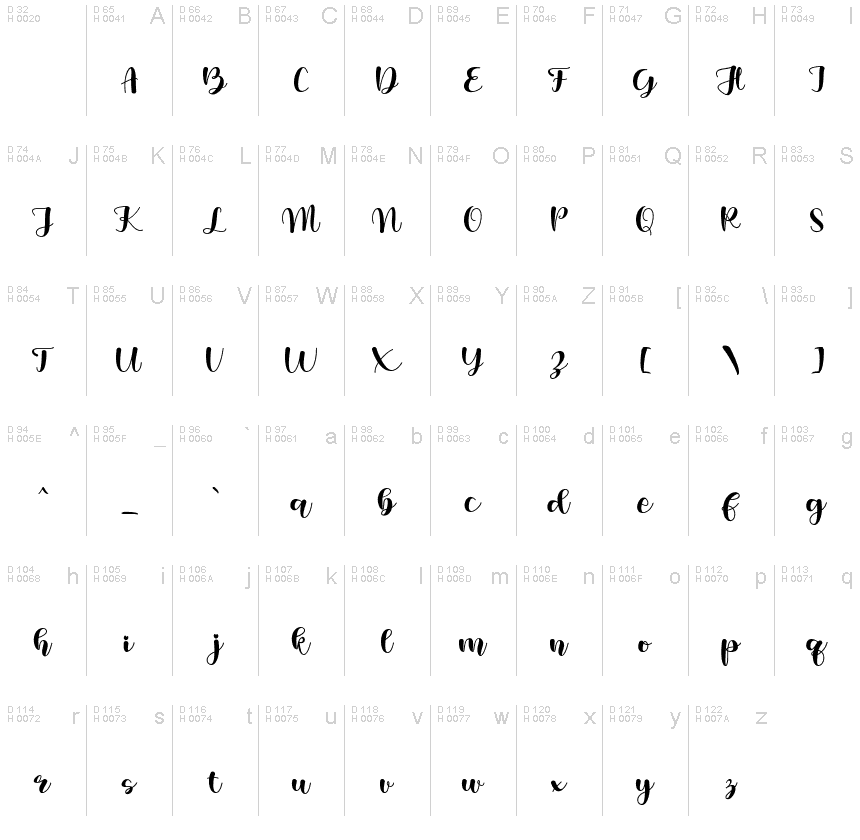
Valentine Vanilla
Valentine Vanilla is a charming calligraphy font designed by Sarif Letter. The bold weight and cute style make it perfect for Valentine's Day projects, wedding invitations, and romantic branding. The fluid strokes of this font bring a touch of elegance to any design. Use it for social media graphics, greeting cards, or even product packaging. Valentine Vanilla adds a warm and personal touch to your design projects. Let this beautiful typeface express your love and creativity!